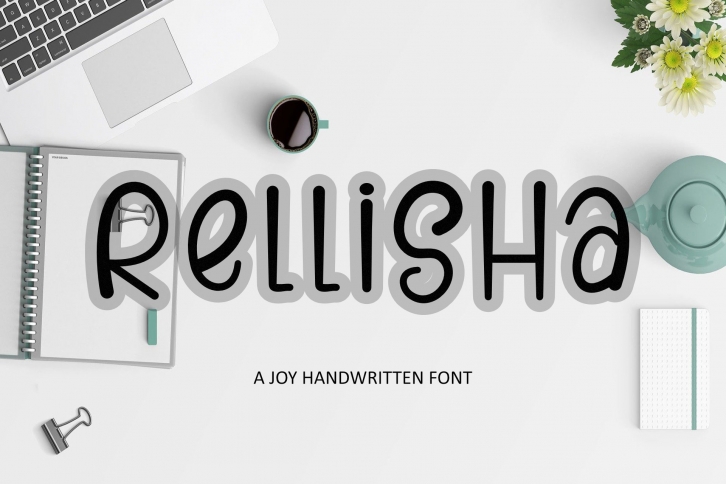
RelliSHa is a beautiful font that was designed by insanurbahagia. It's a great choice for designers and creatives who need such a font. It was released on September 26, 2020 and the file size is 14.81 MB. RelliSHa may give a more youthful, expressive and casual look to your project. It is a very beautiful, refined, elegant, and high-quality font.